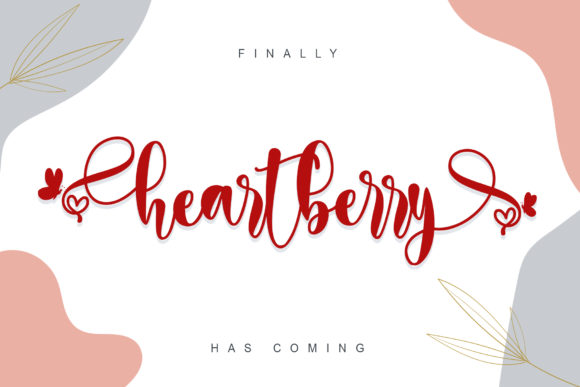
Welcome to the world of Heartberry Font, a remarkable creation crafted by thomasaradea, designed to captivate hearts and ignite your imagination. This script font, bursting with elegance and charm, promises to transform your design projects into masterpieces.
Heartberry Font's delicate strokes and graceful curves evoke a sense of pure artistry, flawlessly mirroring the beauty of handwritten calligraphy. Its sweeping ascenders and descenders add a touch of dynamism, while the subtle variations in thickness create a visually stunning texture.
Step into a realm where fashion and typography harmoniously intertwine. Heartberry Font is the ultimate choice for fashion designers, bloggers, and creatives seeking a font that effortlessly exudes style and sophistication. Its inherent charm makes it perfect for branding, logos, social media posts, invitations, and any project craving a touch of elegance.
But Heartberry Font's versatility doesn't end there. Its wide spectrum of applications knows no bounds. From greeting cards that convey heartfelt messages to headlines that demand attention, this font mesmerizes in every context. Unleash your creativity and let Heartberry Font add a touch of magic to your projects, leaving a lasting impression on all who encounter it.
With Heartberry Font, the possibilities are endless. Its PUA encoding grants you effortless access to a world of beautiful glyphs and swashes, empowering you to add intricate details and flourishes to your designs with a few simple clicks. Whether you seek to craft enchanting wedding invitations, design eye-catching posters, or elevate your social media presence, Heartberry Font is your trusted companion.
Immerse yourself in the world of Heartberry Font, a script font that captivates and inspires. Let its ethereal beauty elevate your designs, leaving a trail of enchantment wherever it goes. Embrace the boundless creativity that awaits you and embark on a journey of typographic artistry like never before.